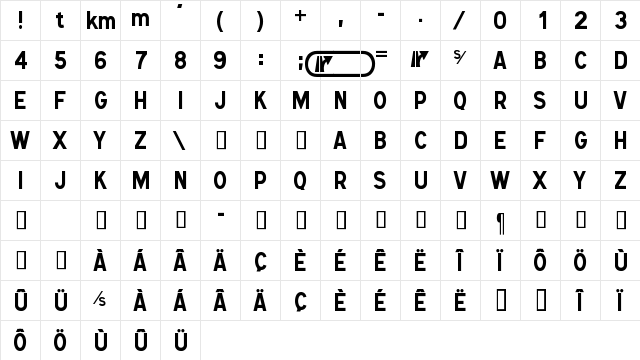
Caracteres L1 Regular Font Preview
Caracteres L1 Regular
Caracteres L1 Regular Font Details
Design Context for Caracteres L1 Typeface
Caracteres L1 offers clean, dependable letterforms without strong stylistic allegiance, making it a practical choice for designers who need flexibility.
Pro Tip: Use Caracteres L1 in both headline and body roles to test its range before committing to a single application.